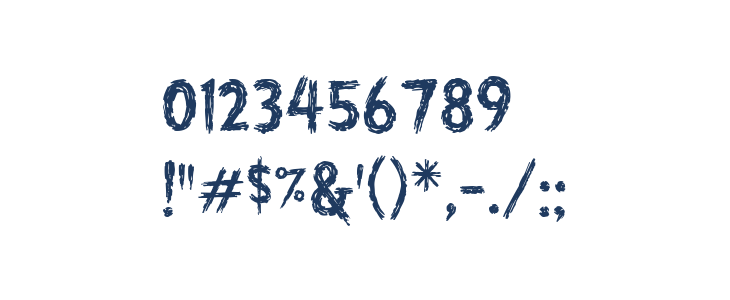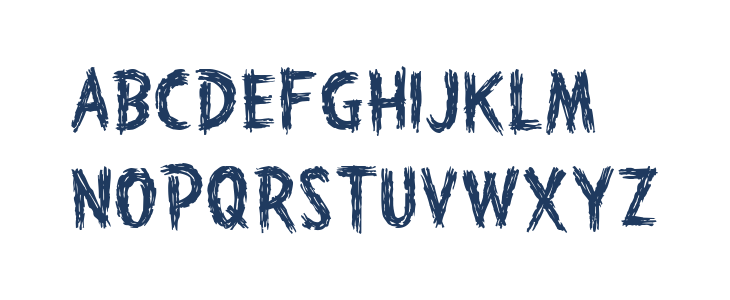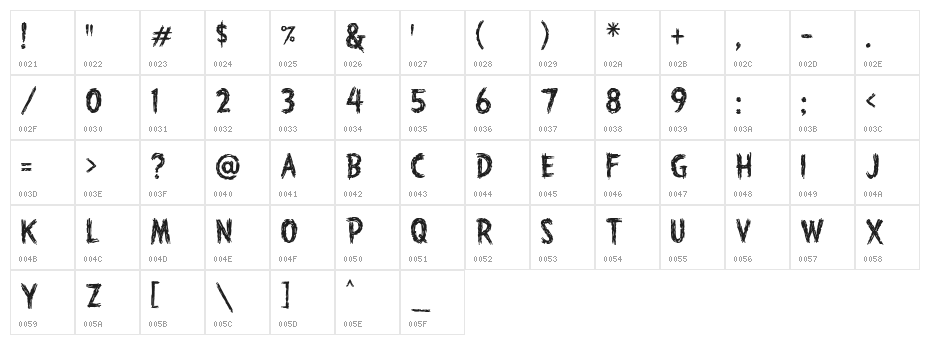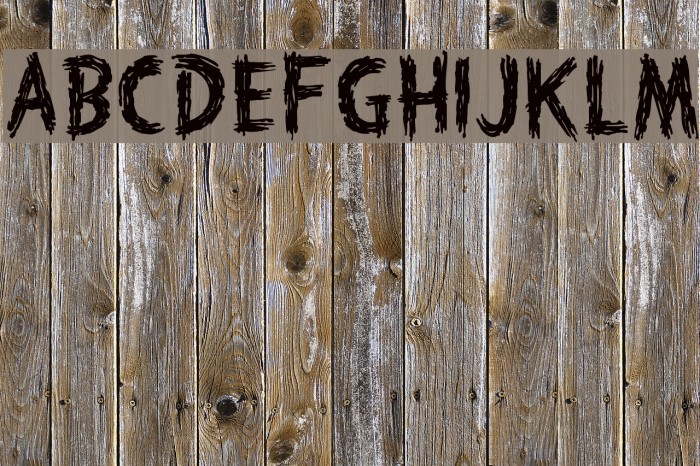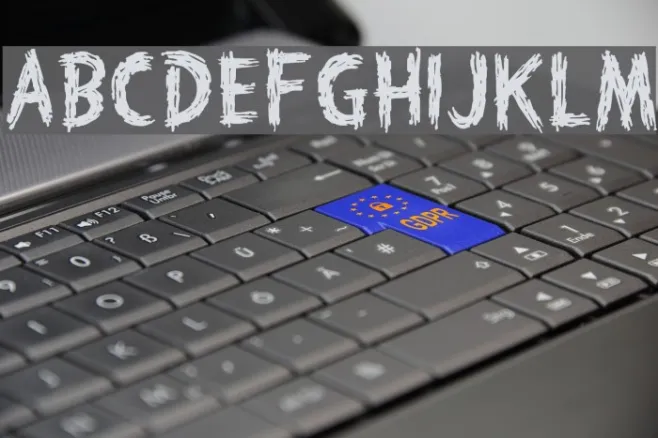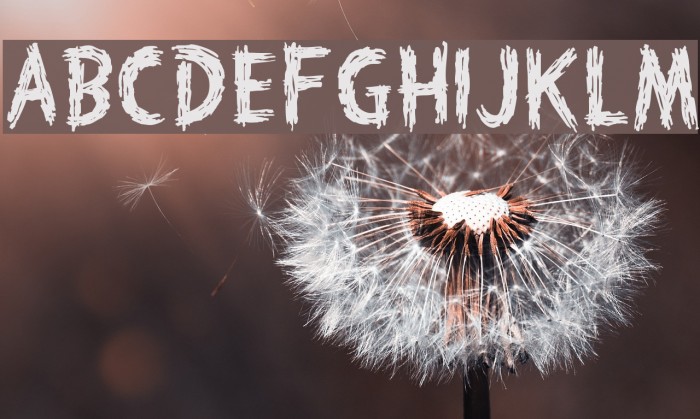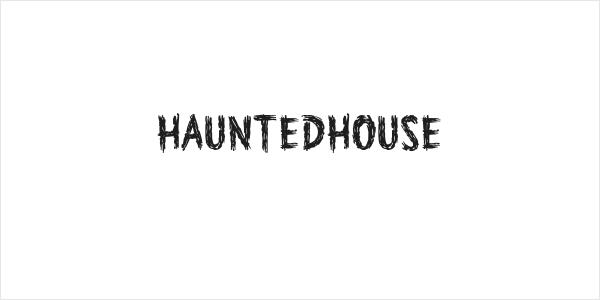
HauntedHouse Font
This font features a spooky, jagged design that evokes a sense of mystery and eeriness. The characters are irregularly shaped with rough, uneven edges, resembling scratch marks or hastily drawn letters. This style gives it a haunted, unsettling appearance, perfect for themes related to horror or the supernatural. The uppercase and lowercase letters maintain a consistent style, with numbers and special characters following the same eerie aesthetic. The font's unique texture and irregularity make it stand out, adding a dramatic flair to any design.
| Proposed Projects | Ideal for Halloween-themed projects, horror movie posters, haunted house flyers, and spooky event invitations. |